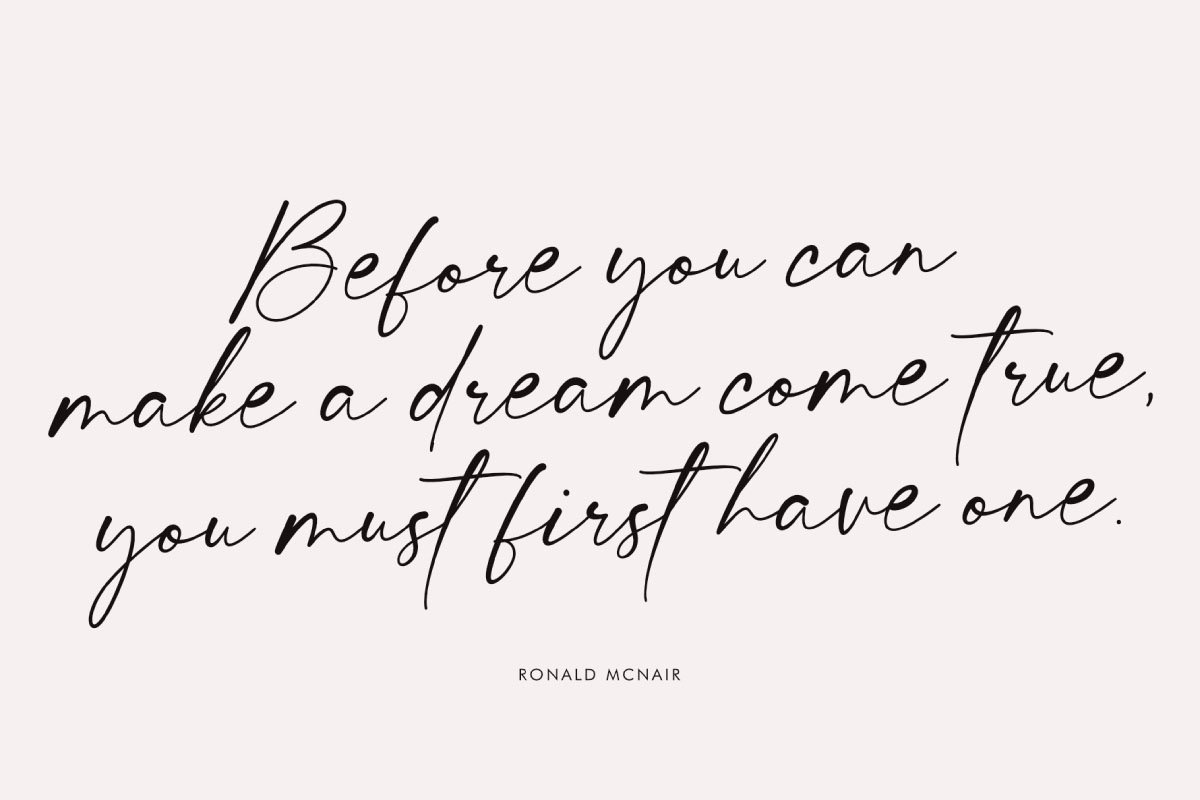
Callisa Beauty – Script Font is a captivating script font designed to elevate your creative projects. Tailor-made for branding, advertisements, web design, social media, greeting cards, logos, and more, this font is your perfect choice for adding elegance and personality to your designs.
Callisa Beauty